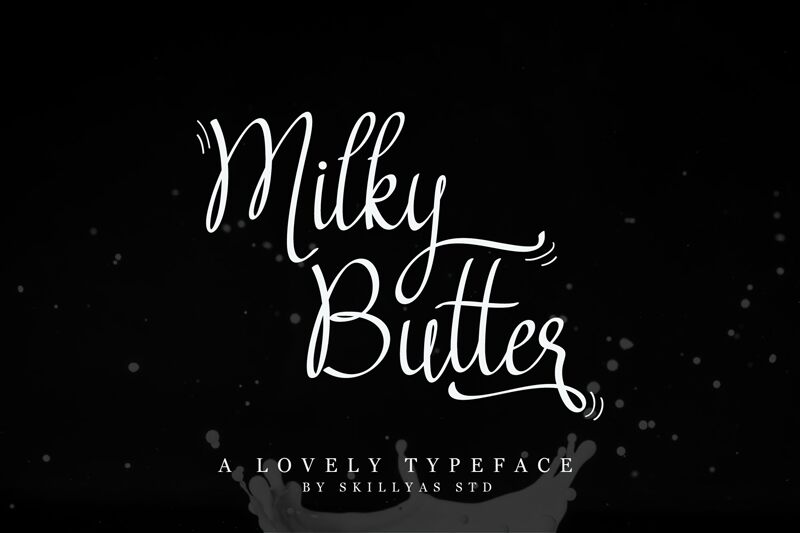
Milky Butter is a modern script font designed by Skillyas std and it's perfect for branding projects, wedding designs, social media posts, advertisements, product packaging, product designs, label, photography, watermark, invitation, stationery, and any projects that need unique handwriting taste.